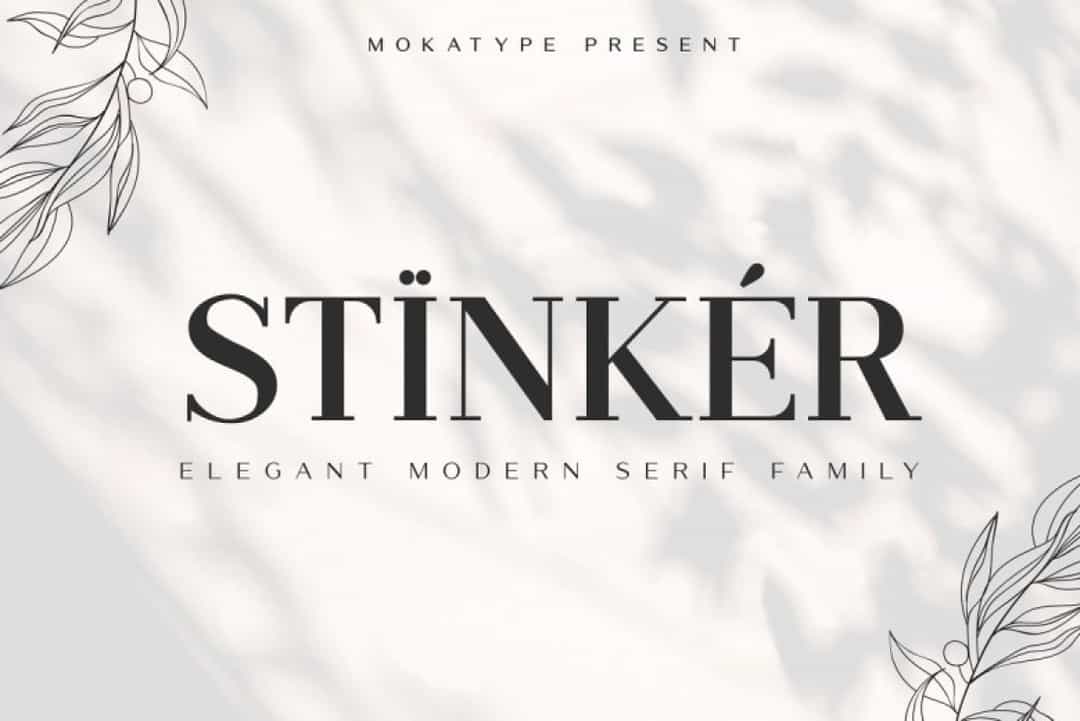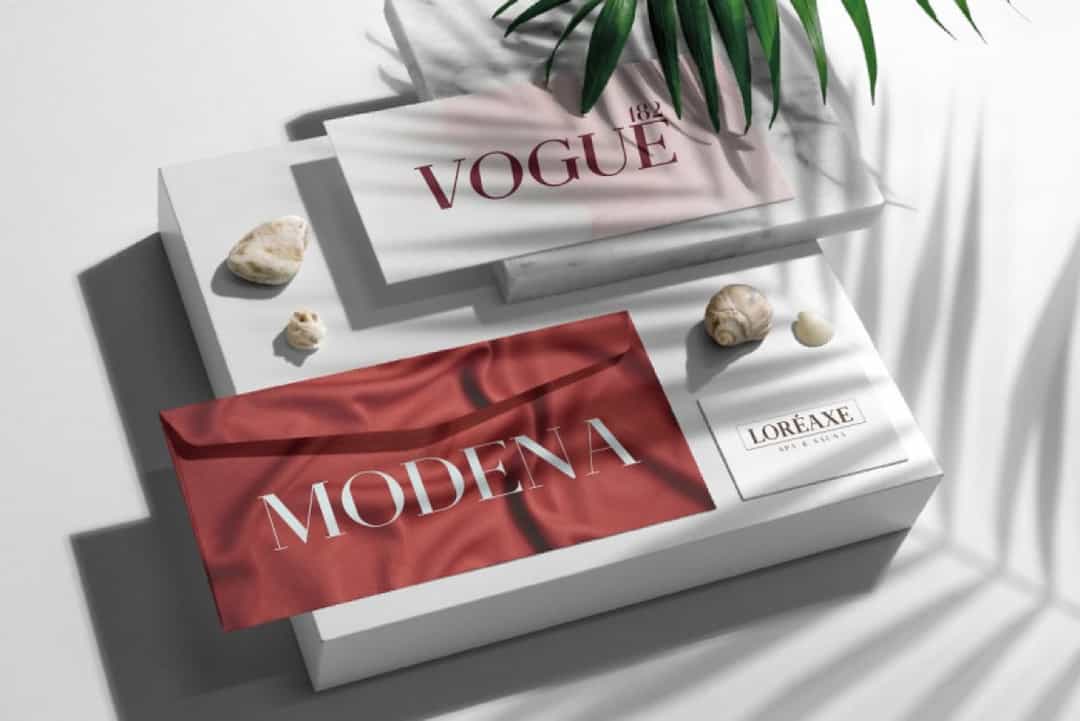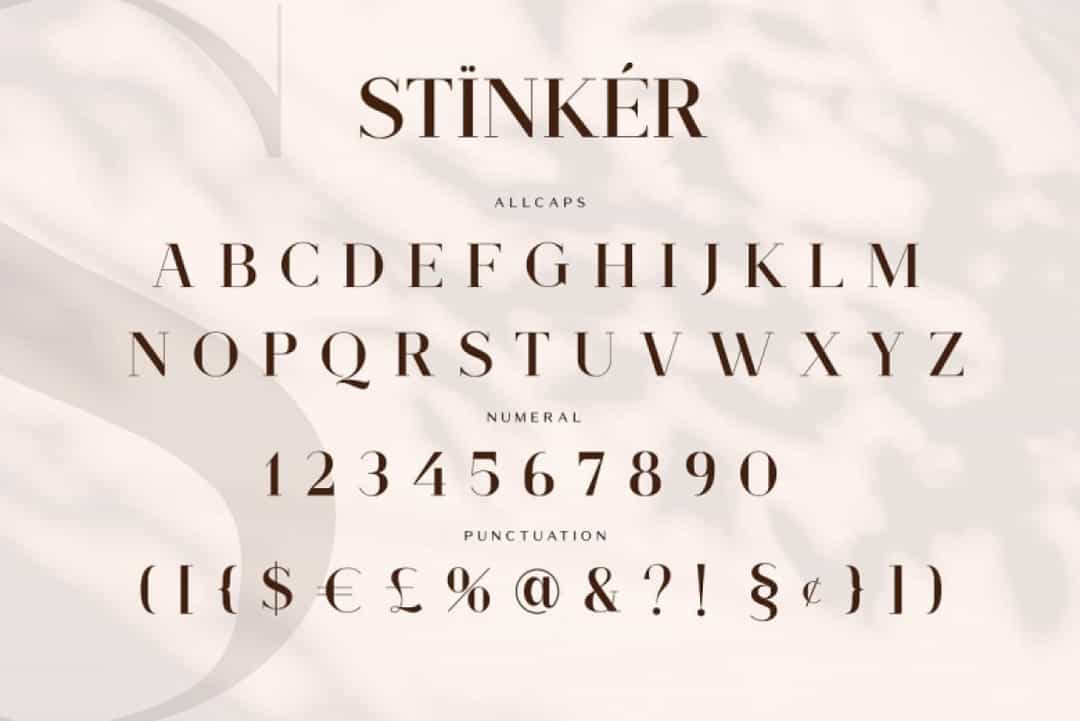
Stinker Font is a modern style serif typeface with distinctive curves, perfect for mastheads, logos, monograms and pull quotes. It exhibits both masculine and feminine characteristics.